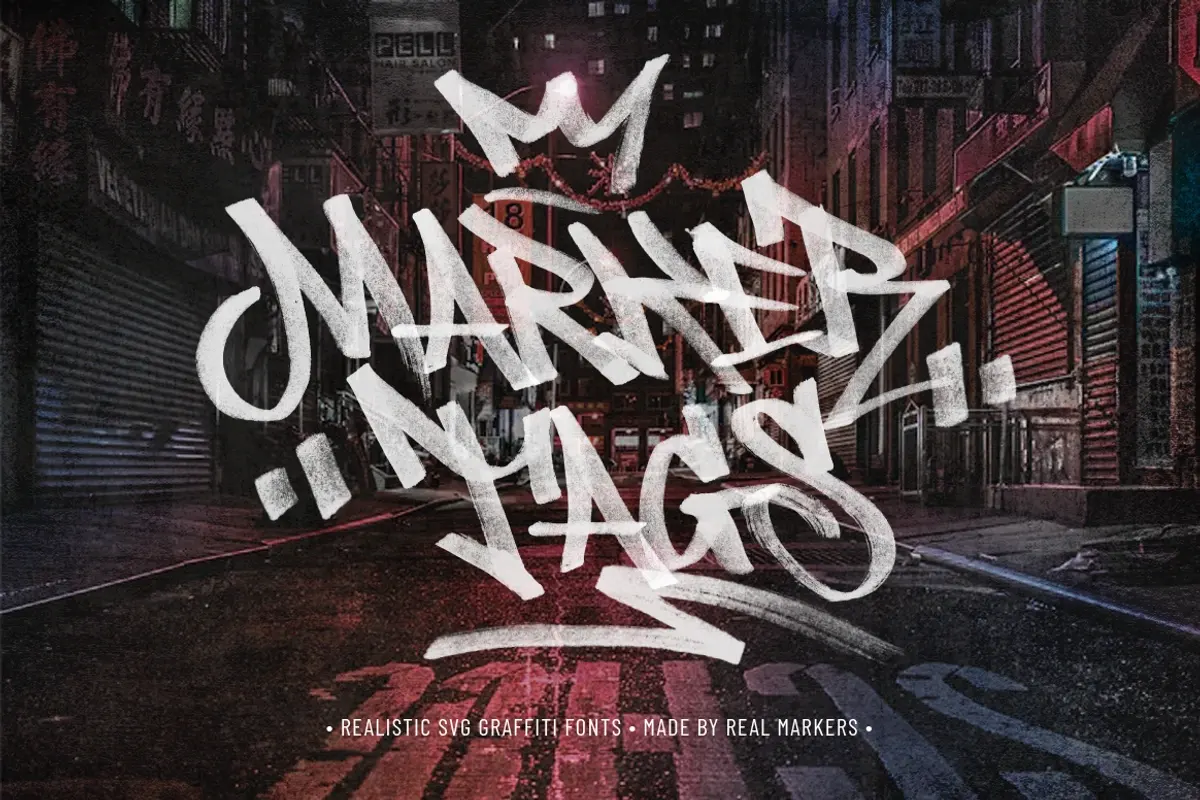
Graffiti Inspired | Marker Tags SVG Font Free Download is a bold, street art-inspired typeface that captures the raw energy and style of urban graffiti. Featuring sharp edges, bold strokes, and a hand-drawn look, this font is perfect for creating eye-catching logos, posters, murals, social media graphics, and streetwear designs.
With its rough, marker-tagged style, this font adds an edgy, rebellious vibe to your creative projects. Whether you're designing for an urban brand, promoting an event, or crafting artwork that speaks to street culture, Graffiti Inspired | Marker Tags SVG Font Free Download delivers a unique and powerful look.